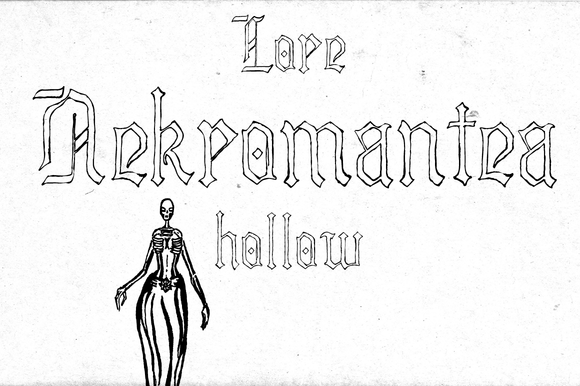
Encounter Lore Nekromantea Hollow Font, a feast for the eyes designed to captivate and beguile. This font, born from the imagination of Dawnland, is a masterwork of blackletter calligraphy, conjuring an air of ancient mystery and arcane allure. Immerse yourself in the exquisite details of each letterform, meticulously crafted to evoke a sense of wonder and awe.
Indulge your senses in the delicate curves and intricate flourishes that adorn each character. Lore Nekromantea Hollow Font dances across the page like a whispered incantation, its ethereal beauty enchanting the beholder. Summon the spirits of the past and cast spells with words, as this font grants you the power to weave tales of magic and intrigue.
Elevate your creative endeavors to new heights with Lore Nekromantea Hollow Font. Whether you're conjuring logos that exude an otherworldly aura or crafting invitations that transport recipients to a realm of fantasy, this font possesses the power to transform the ordinary into the extraordinary. Unleash your imagination and let the font guide you on a journey through time and space, where the boundaries of reality dissolve, and the impossible becomes tangible.
Harness the essence of mystery and intrigue with Lore Nekromantea Hollow Font. Its captivating presence will leave an indelible mark on your designs, leaving readers spellbound and eager for more. Embrace the allure of the unknown and let this font be your conduit to a world where dreams become reality.